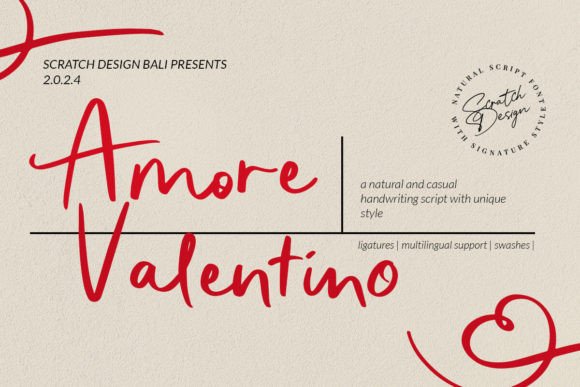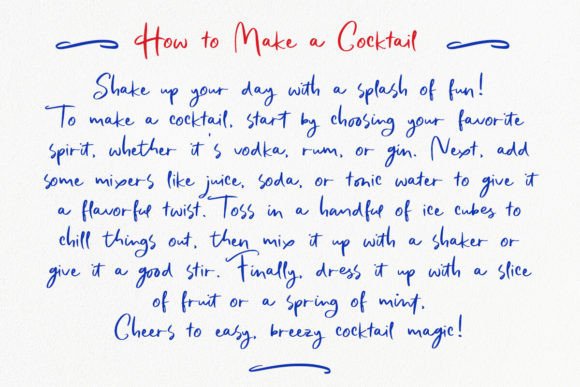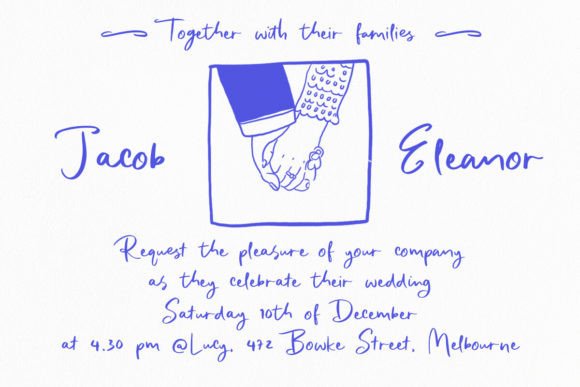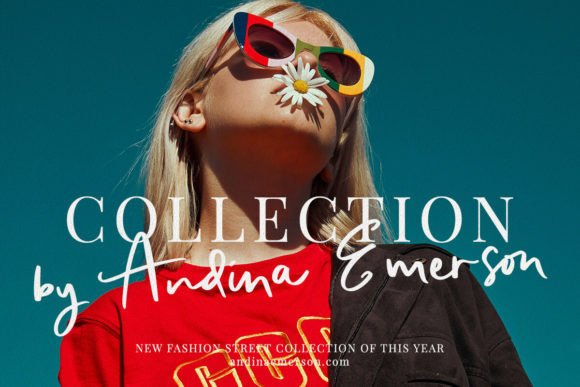
Amore Valentino Font
About the Amore Valentino Font
We are excited to introduce Amore Valentino Font, a must-have typeface for any serious designer. Amore Valentino is a natural and casual handwriting script font with a unique style. It features elegant ligatures, multilingual support, and stylish swashes, perfect for adding a personal touch to your designs. Ideal for wedding invitations, branding, and social media graphics, Amore Valentino brings a touch of sophistication and charm to any project.
Amore Valentino Font Usage Examples
Amore Valentino Font Example